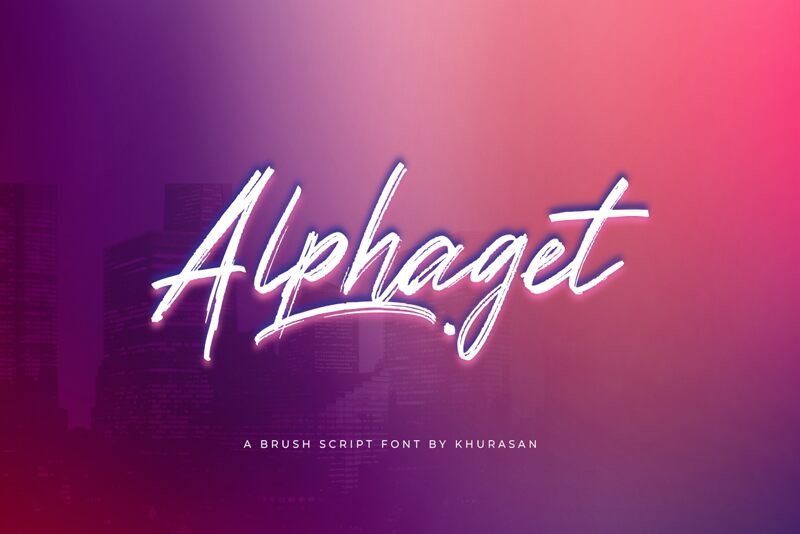
Alphaget
Alphaget, a mesmerizing brush font by Khurasan, effortlessly merges elegance with a touch of playfulness. Its semi-light weight infuses creativity into every stroke, making it perfect for projects requiring a contemporary and artistic vibe.
From fashion blogs to wedding invitations, Alphaget brings a unique charm that captivates viewers. Its graceful curves and refined detailing make it ideal for logo designs, branding materials, and packaging that demand an exquisite touch.
With Alphaget, elevate your projects to new heights as this versatile font adds sophistication and character in the most captivating way.